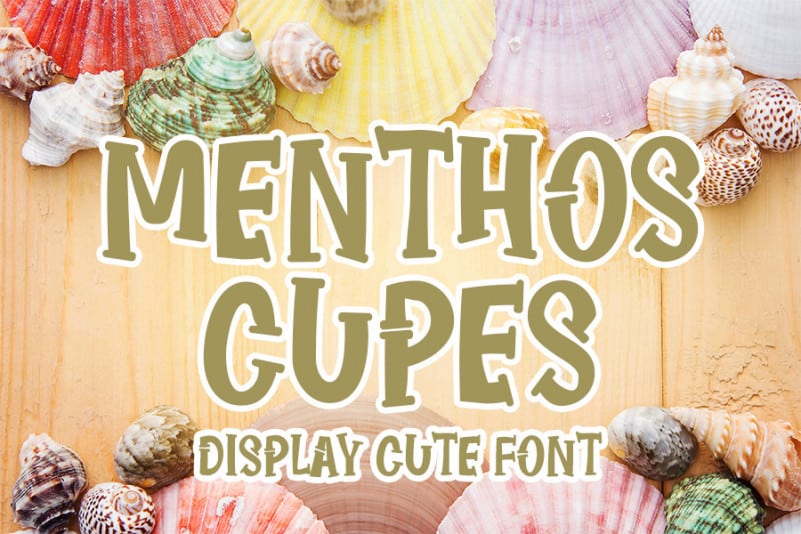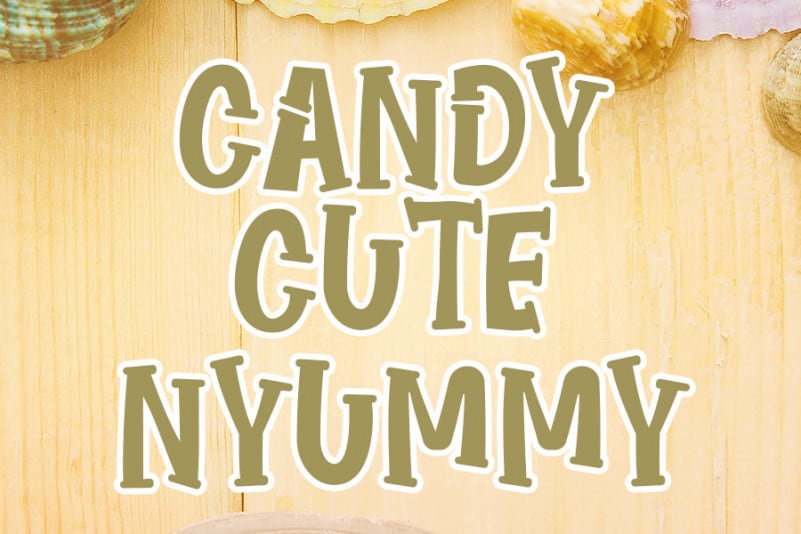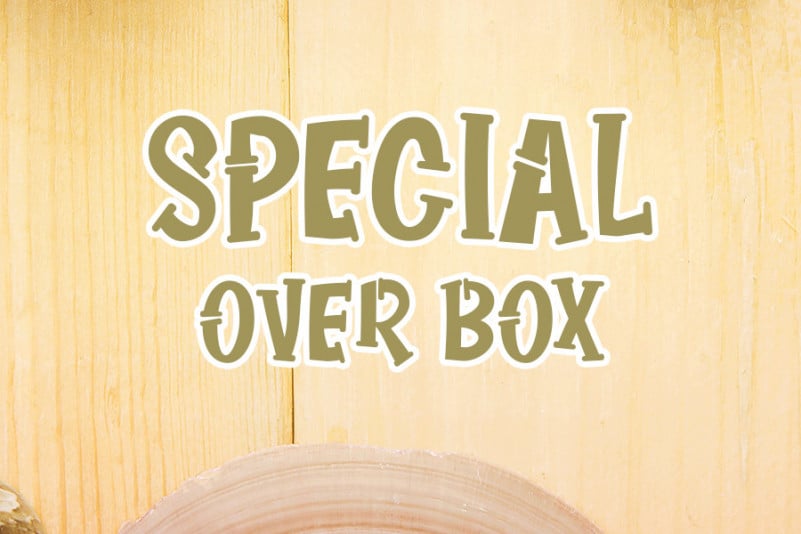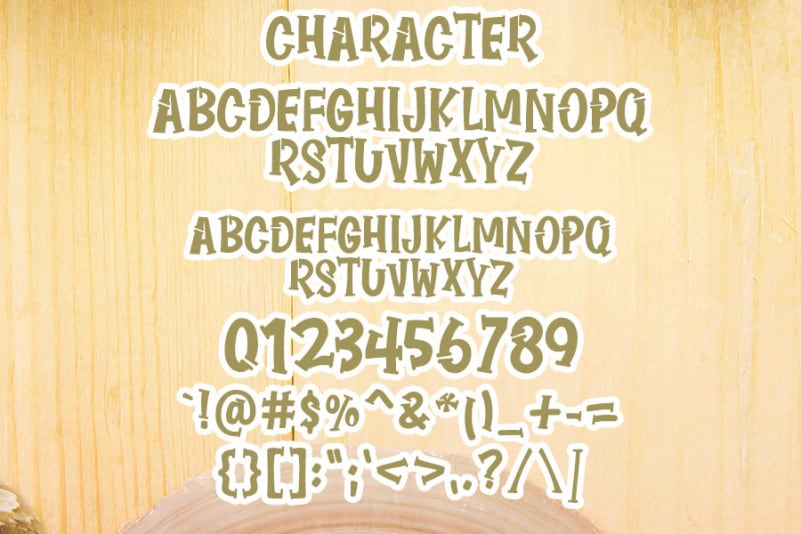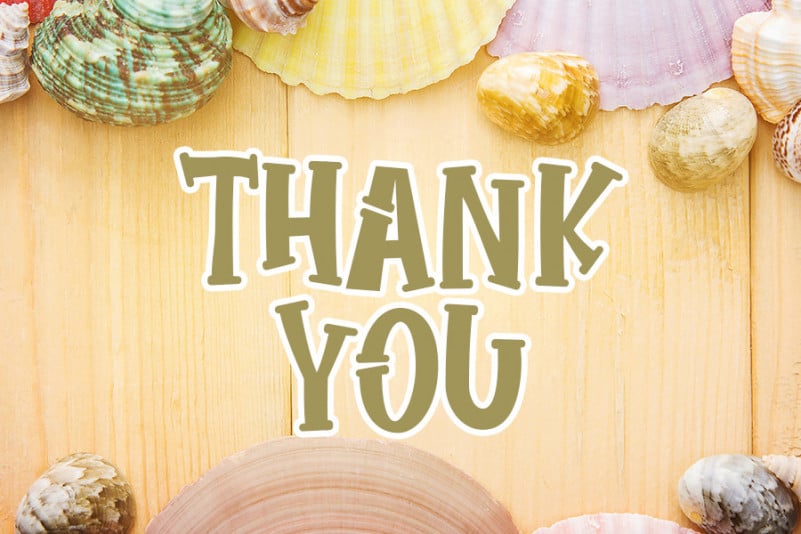
MENTHOS CUPES Display Font
MENTHOS CUPES Display Font is a great Display Font. It maintains its classy calligraphic influences while feeling contemporary and fresh. This versatility will appeal to a wide range of crafty ideas, from letterheads and titles to stationery.